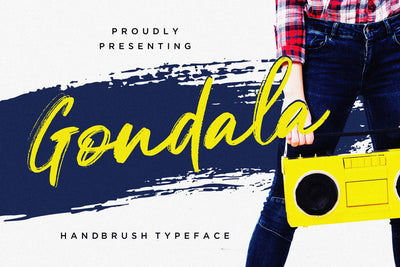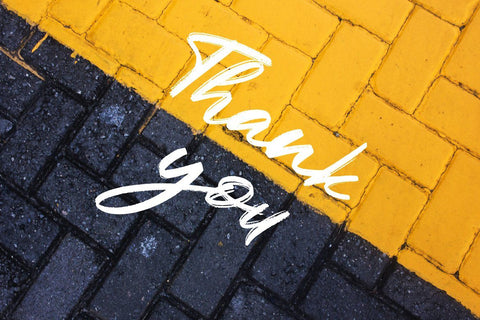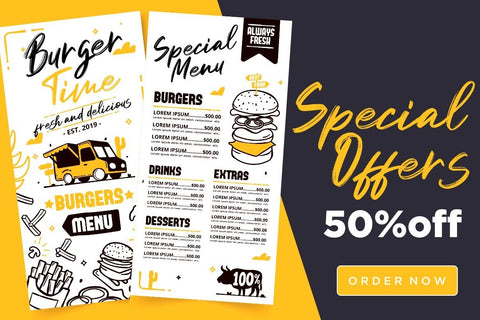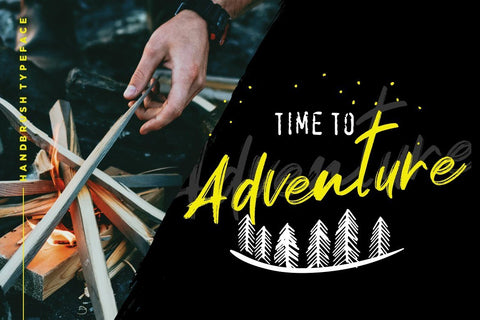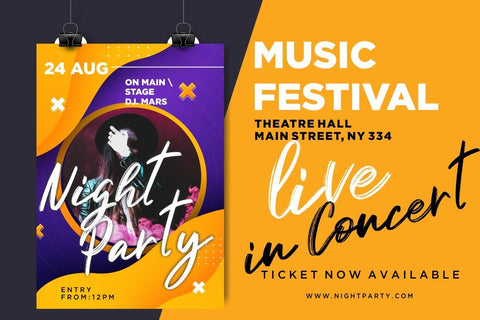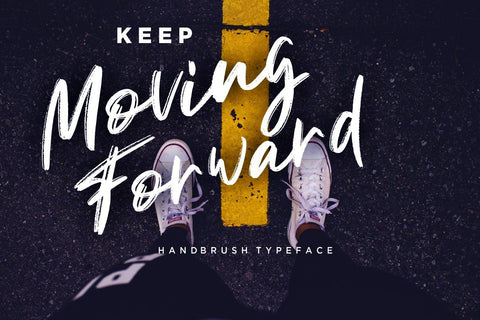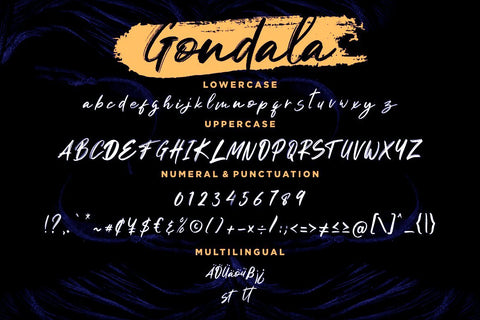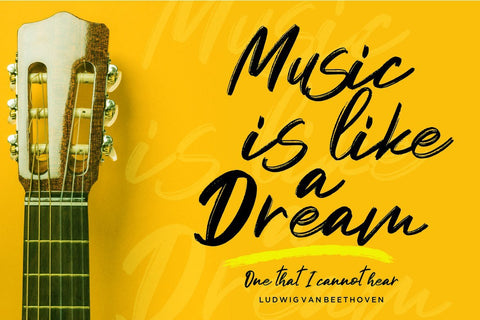
Gondala Handbrush Typeface
Gondala is a handwritten brush font with authentic dry brush imperfections strokes drawn on paper.
Gondala is perfect for branding projects, logo, wedding designs, social media posts, advertisements, product packaging, product designs, label, photography, watermark, invitation, stationery and any projects that need handwriting taste.
- Tons of glyphs
- Ligature
- Fonts include multilingual support for; ä ö ü Ä Ö Ü ß ¿ ¡